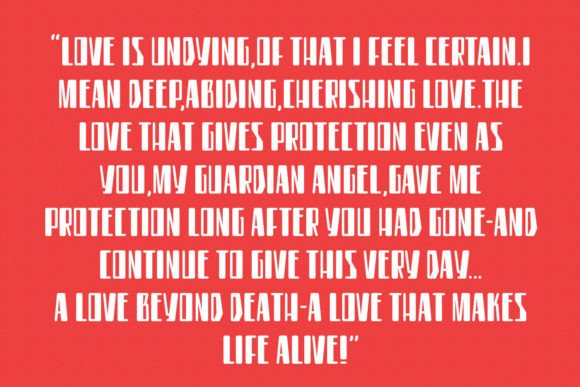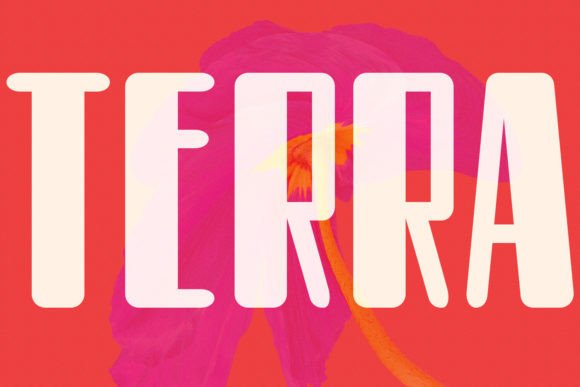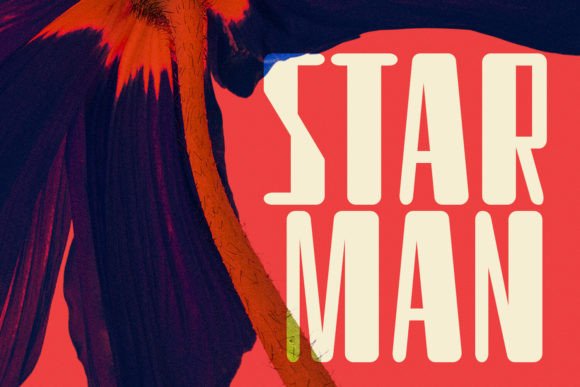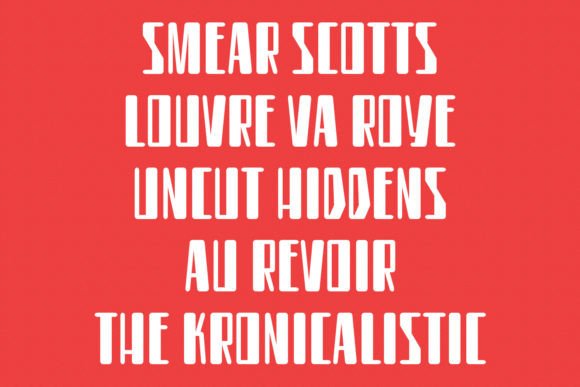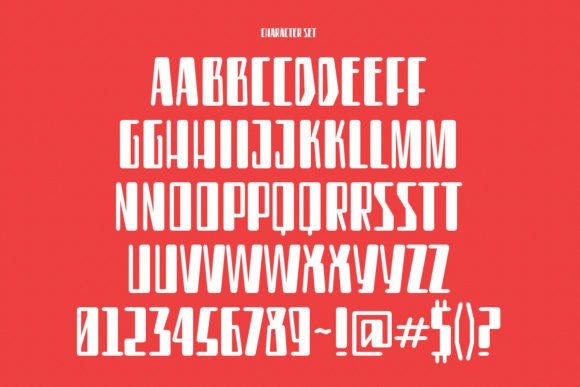
The Power of Typography: Unleashing Your Creativity with Groens Font
You know that feeling when a new font suddenly sparks a brilliant idea, and you can’t wait to bring it to life? For designers, typography is the foundation of any successful project, and finding the perfect font can be the difference between a good design and a great one. That’s where the Groens Font comes in – a bold and assertive sans serif font that’s about to become your new go-to companion.
Whether you’re working on a high-energy campaign, a sleek tech project, or a modern publication, the Groens Font has the potential to elevate your creations and leave a lasting impression. Its versatility and modern aesthetic make it an invaluable asset to any designer’s library, allowing you to express your unique style and vision with confidence.
Groens Font Key Features
- Unique Characteristic: Features a unique blend of modern and vintage elements, making it suitable for both contemporary and classic designs
- Font Style: Available in 6 font styles, including Regular, Italic, Bold, Bold Italic, Outline, and Shadow
Groens Font Review
I’ve had the chance to work with Groens Font, and overall, it’s a decent addition to any design project. ✨ One of the things that I appreciate about this font is its modern and sleek aesthetic. It’s perfect for creating a clean and minimalist look in various design contexts, from branding to digital interfaces.
Another aspect that works well in Groens Font is its versatility. It comes in multiple weights, making it suitable for a wide range of applications. Whether you need a light, bold, or anything in between, this font has got you covered. ✨ Its open-source nature is also a significant advantage, as it allows designers to freely use and distribute the font.
- ⚠️ Limited character set: The font’s character set is not comprehensive, which might cause issues when working with non-ASCII characters.
- ⚠️ Not ideal for large blocks of text: Due to its modern design, Groens Font is better suited for short headings or titles rather than large paragraphs.
Overall, I’d say that Groens Font is a solid choice for designers who want a clean, modern font for their projects. However, its limitations should not be overlooked. With careful consideration of these constraints, you can effectively utilize this font to achieve your design goals.
Groens Font is suitable for:
- Typography-based designs
- Editorial and publishing designs
Alternatives to Groens Font for Designers
Montserrat is a sans-serif font designed by Julieta Ulanovsky. It’s perfect for use in headings and titles due to its strong and geometric structure. Montserrat is more versatile and has a larger character set compared to Groens Font, making it suitable for various design projects.
Open Sans is a clean and modern sans-serif font designed by Steve Matteson. It’s ideal for body text due to its high readability and neutral style. Open Sans is more readable and has a larger character set than Groens Font, making it a popular choice for digital design projects.
Lato is a sans-serif font designed by Łukasz Dziedzic. It’s suitable for use in titles and headings due to its elegant and refined structure. Lato is more elegant and has a larger character set compared to Groens Font, making it perfect for luxury and high-end design projects.
Inter is a sans-serif font designed by Rasmus Andersson. It’s perfect for use in body text due to its high readability and clean design. Inter is more modern and has a larger character set compared to Groens Font, making it suitable for various design projects, including digital and print media.